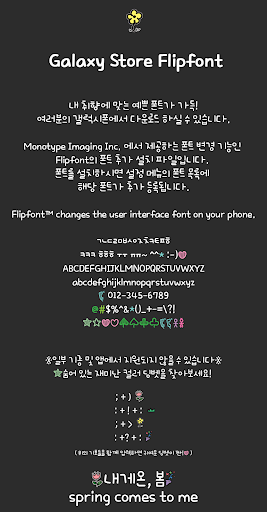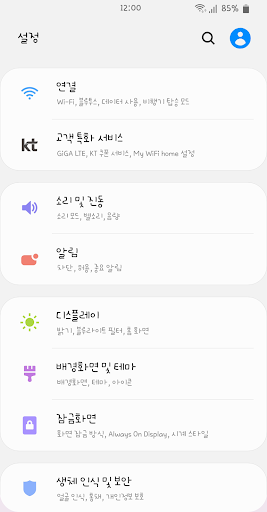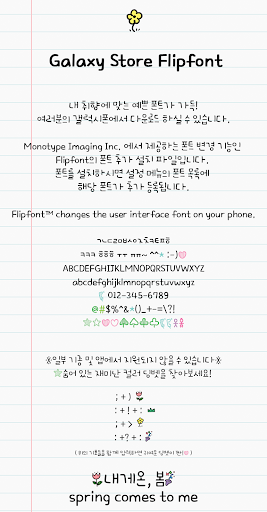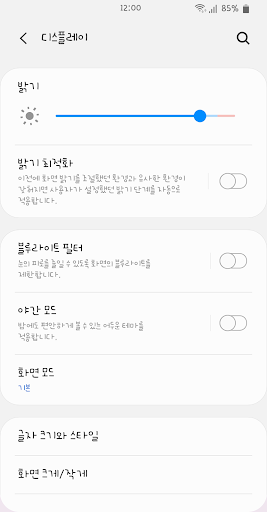
AhMyspring
This font is characterized by a thin pen that feels like it's written in a dense and dense way.
It is designed to have a stable writing line and a sense of shape.
A special hidden rivet is hidden, so please look for it. :>